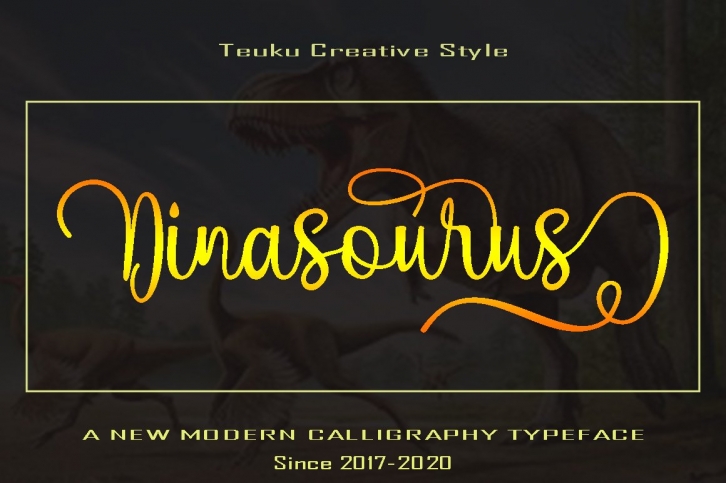
Dinasourus is a gorgeous font that was realeased on April 15, 2020. The font can be used in many style contexts and design environments. Perfect for invitations, magazines, websites, logos, and more! It was designed by teuku creative and the file size is 6.21 MB. Thanks for checking out this font!